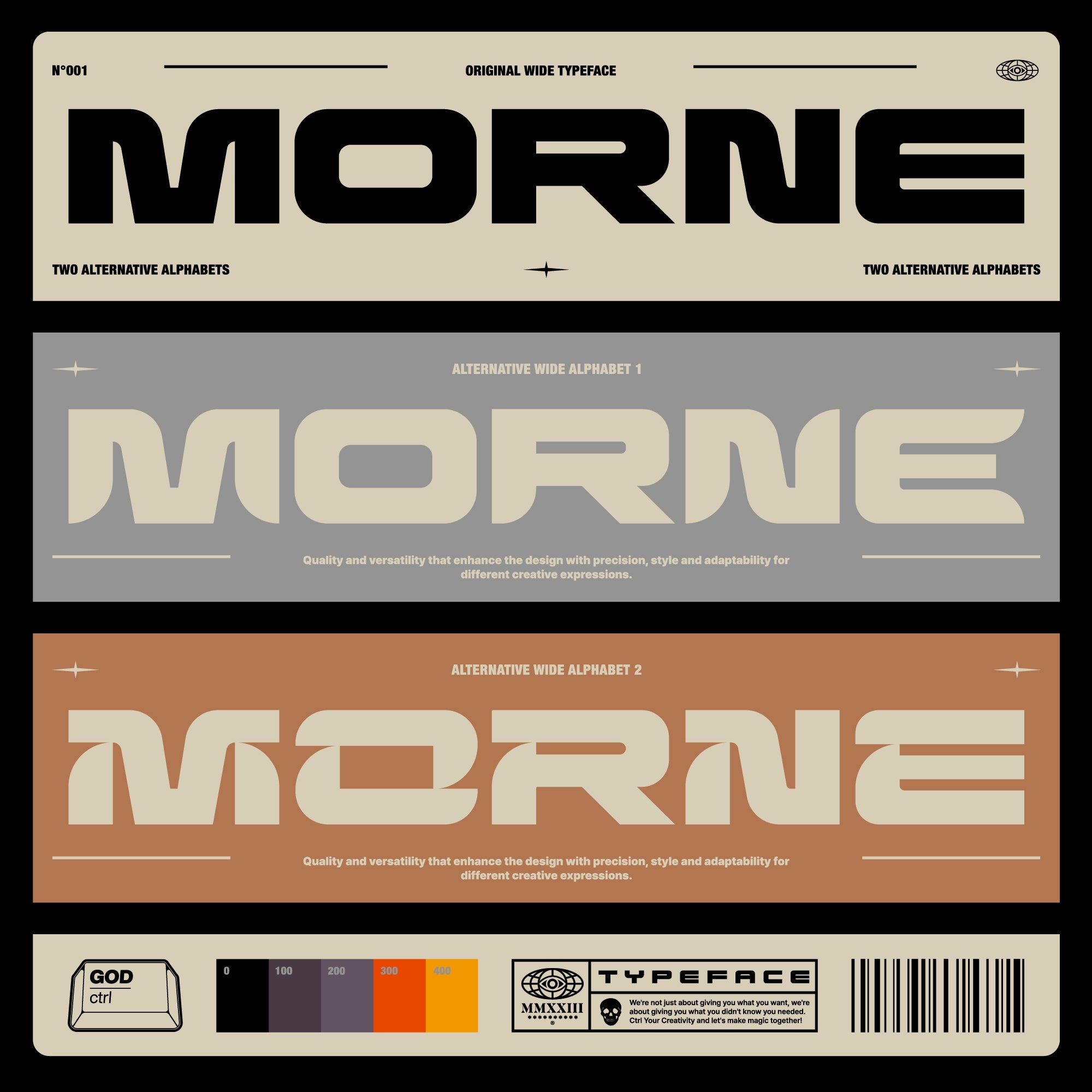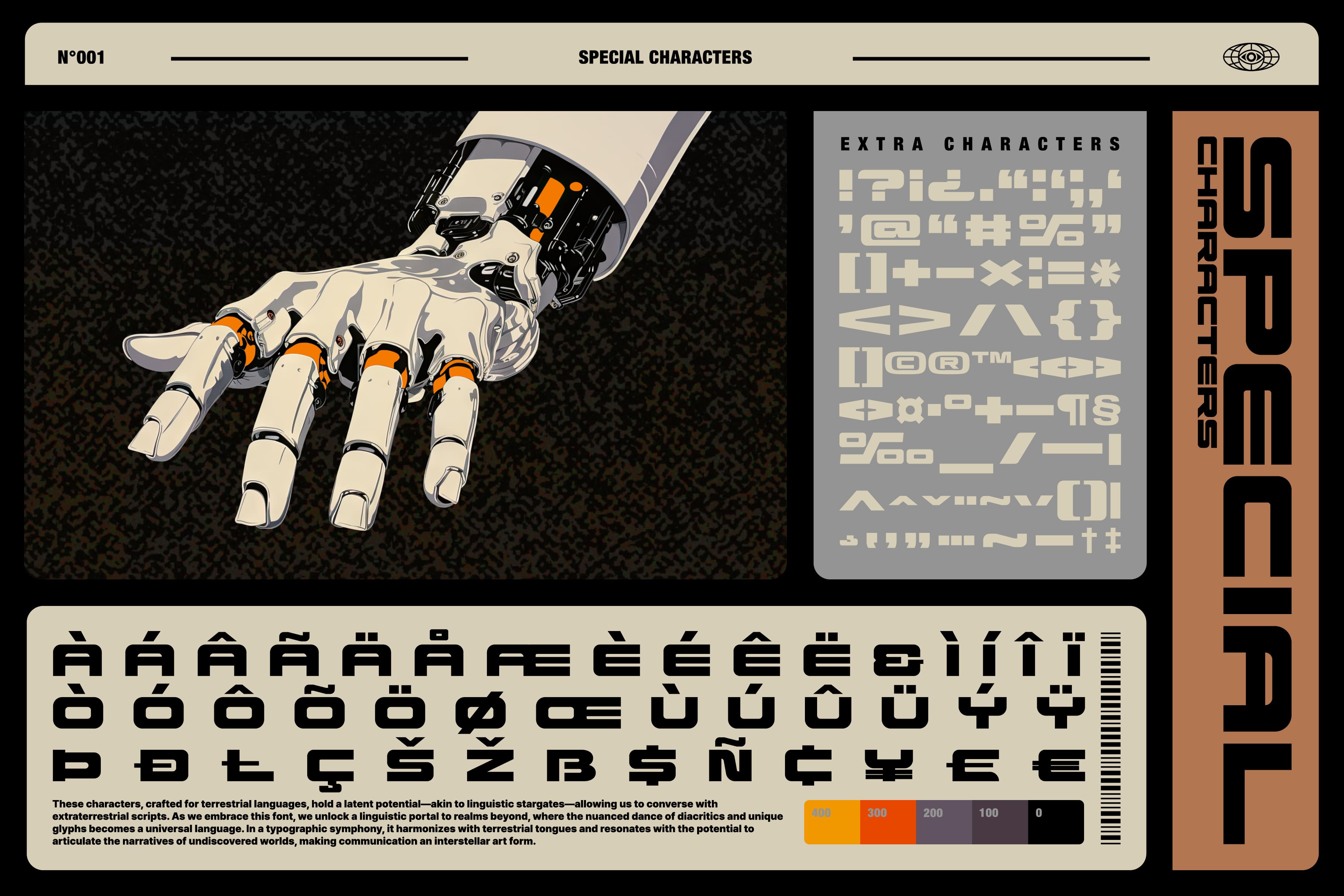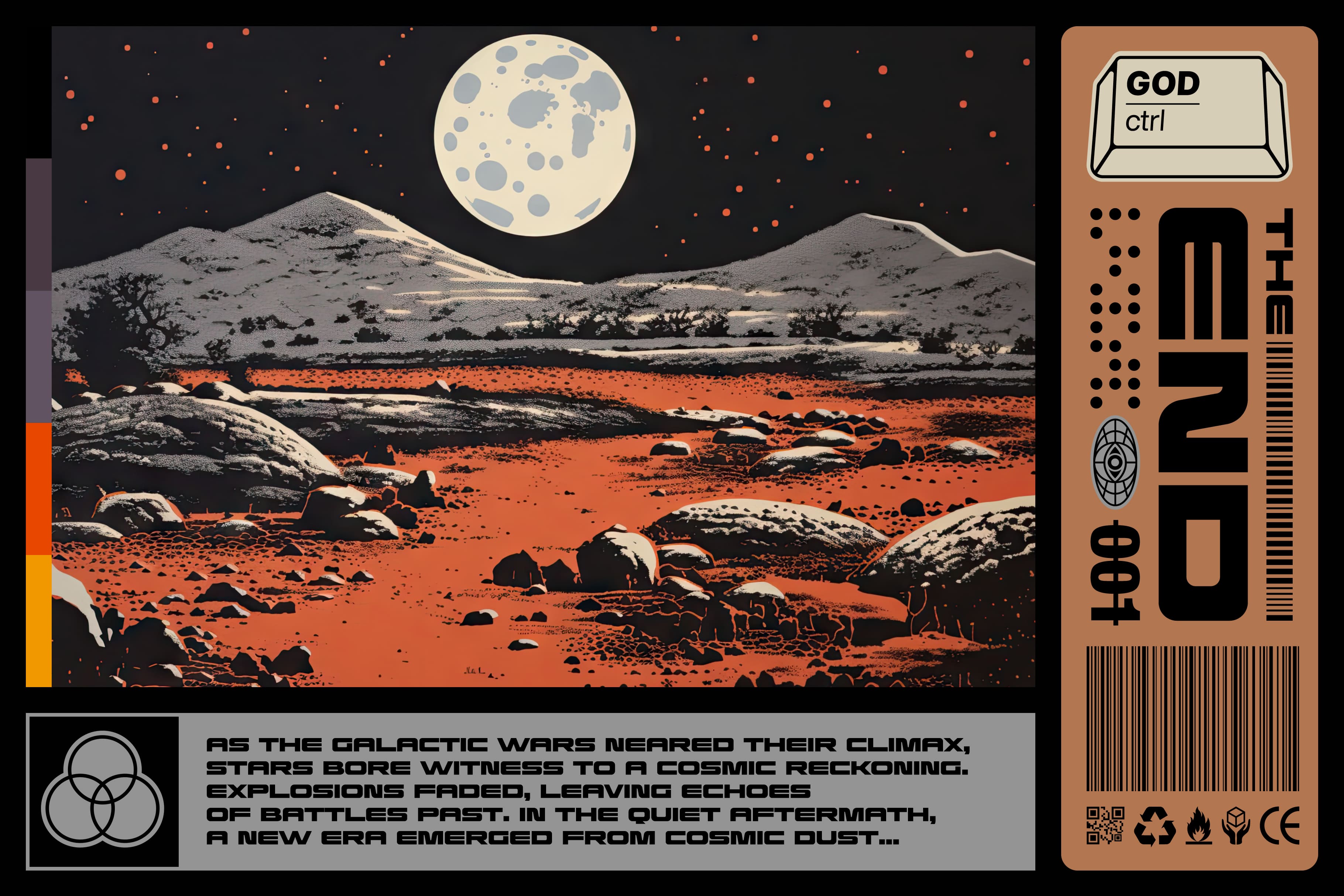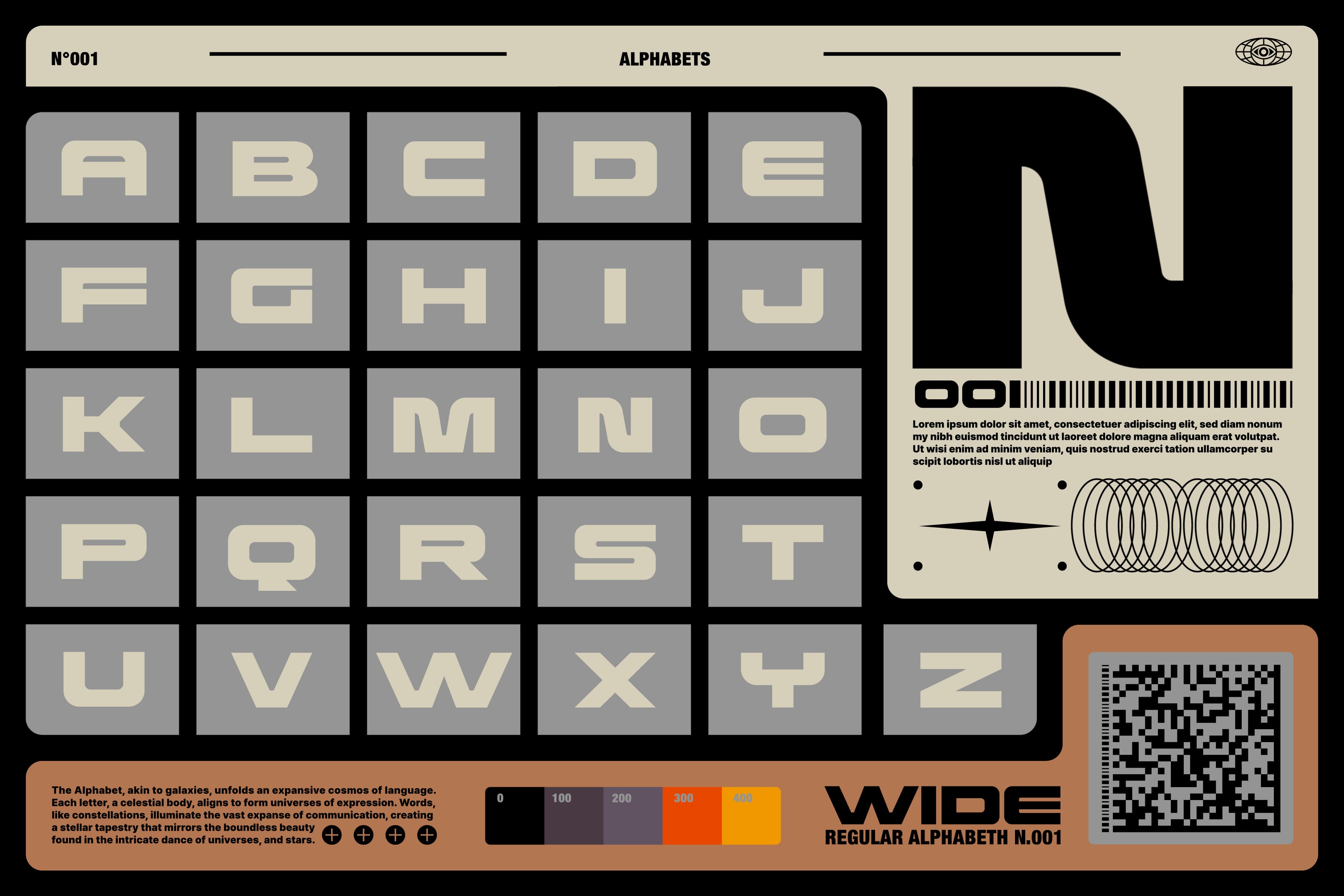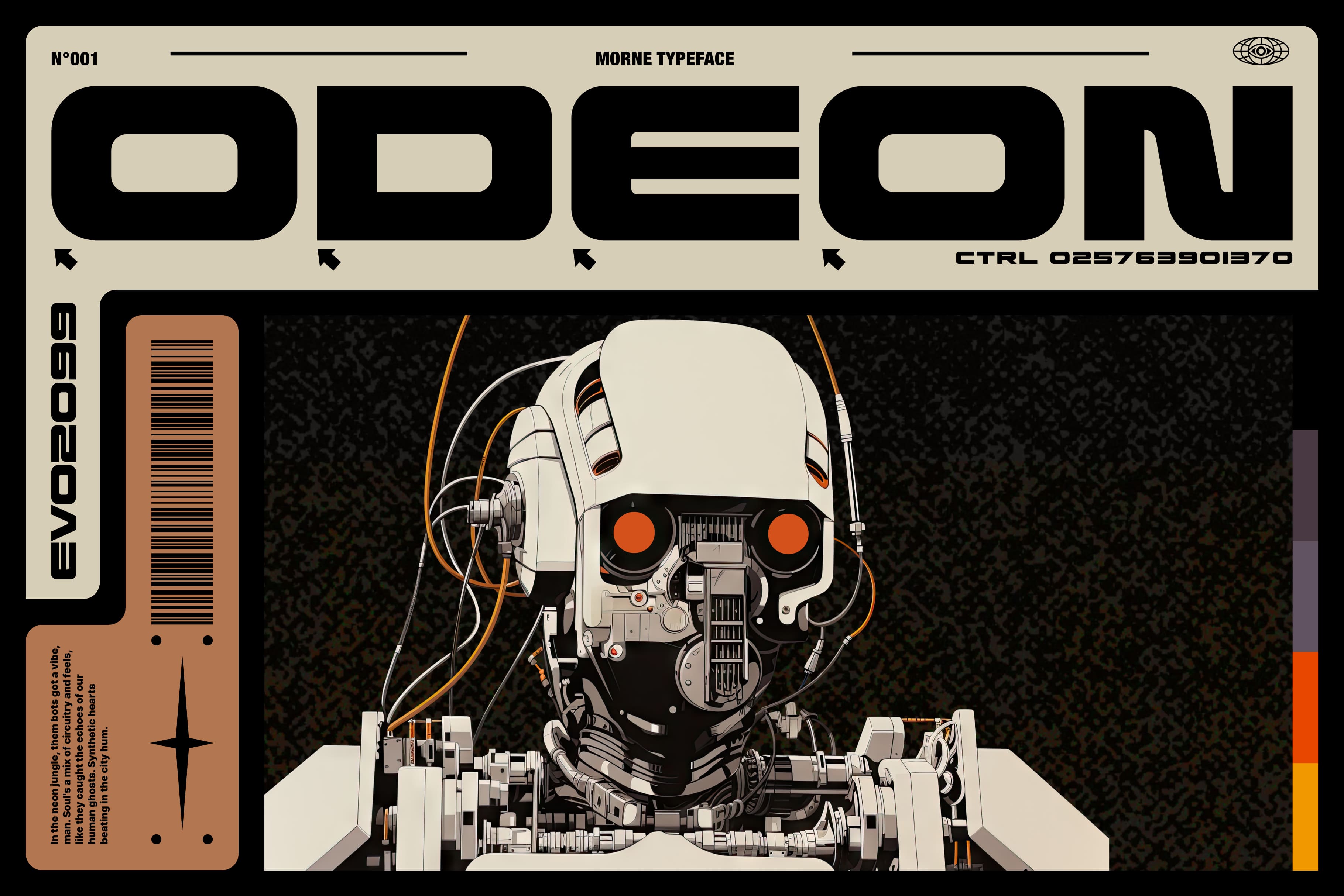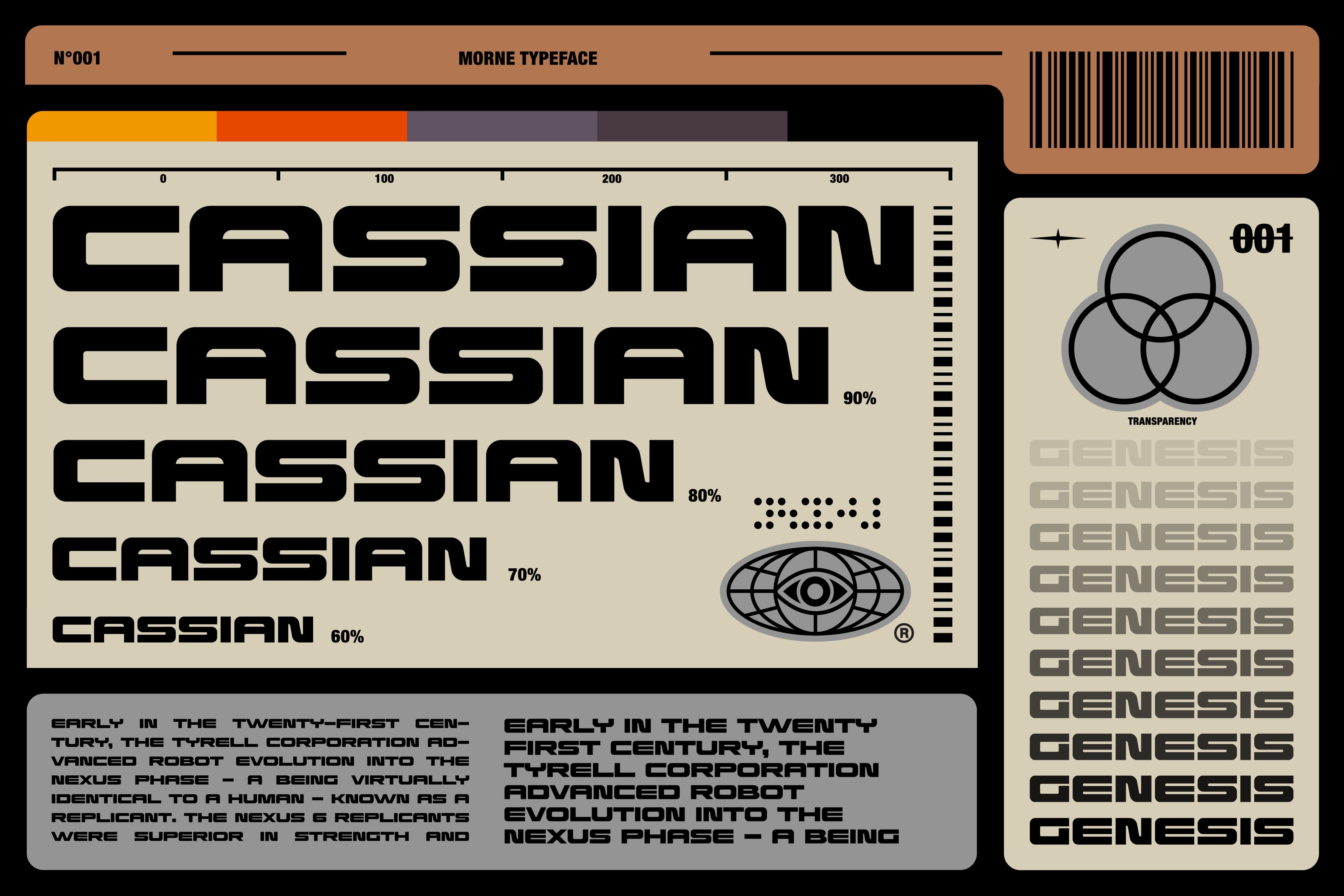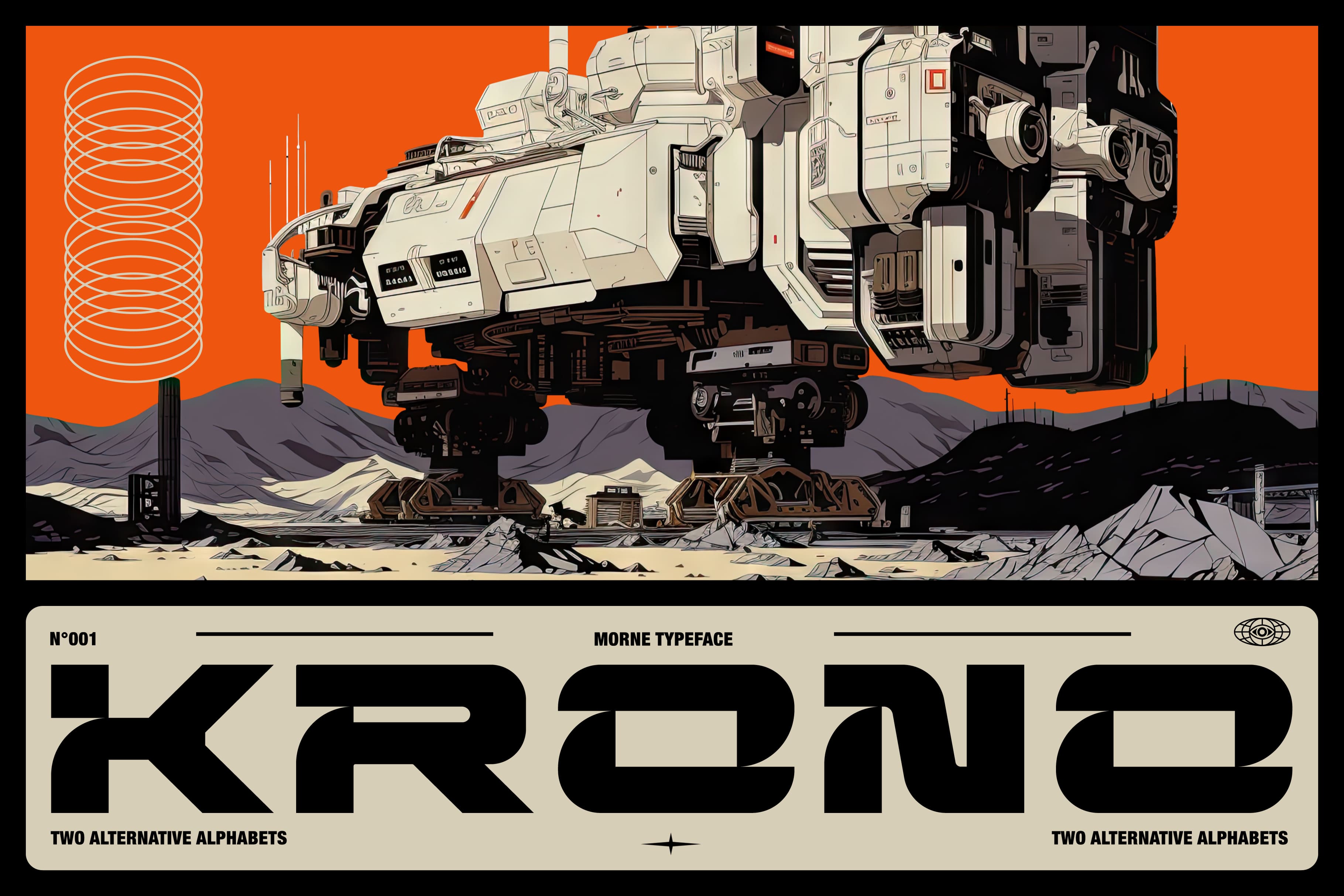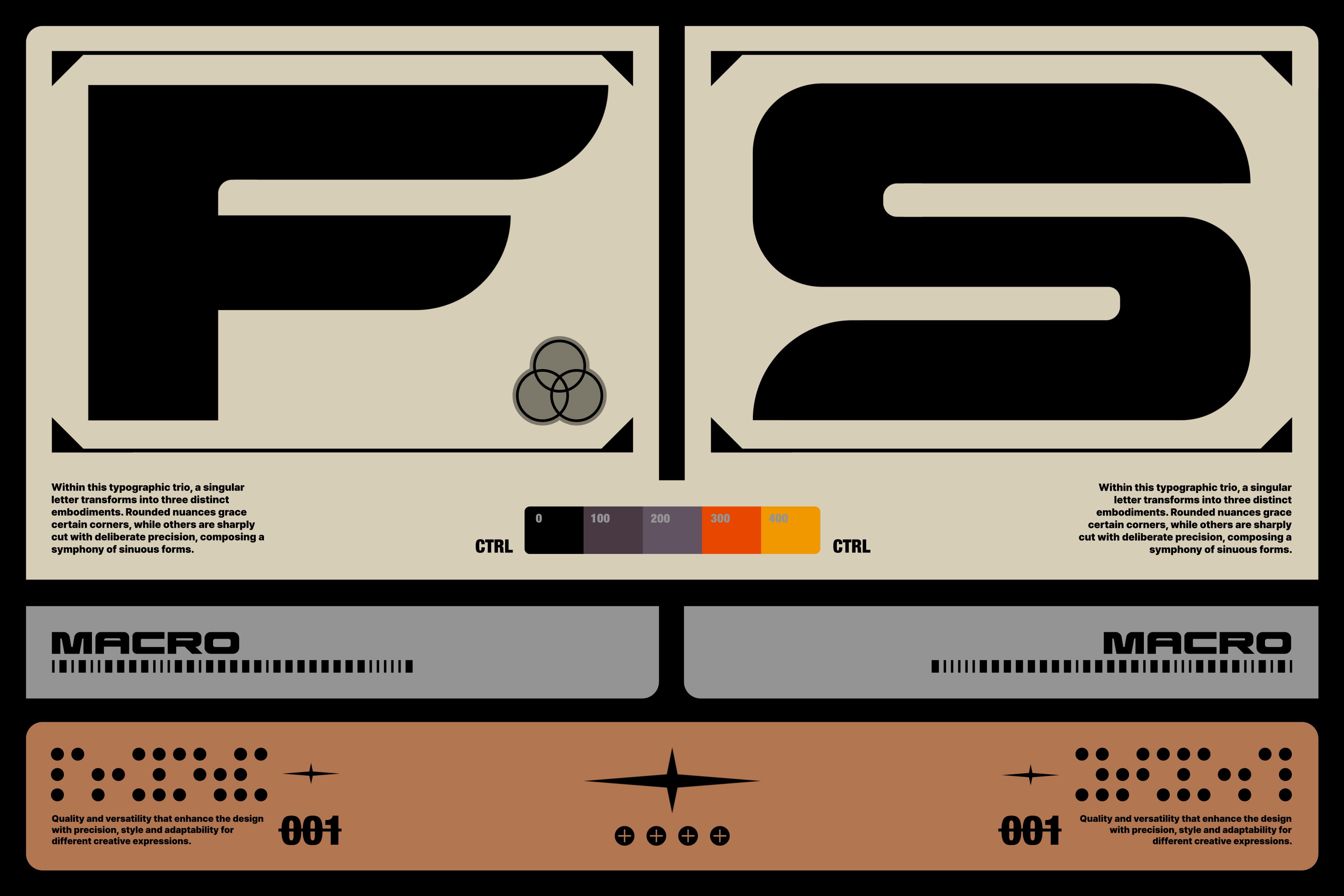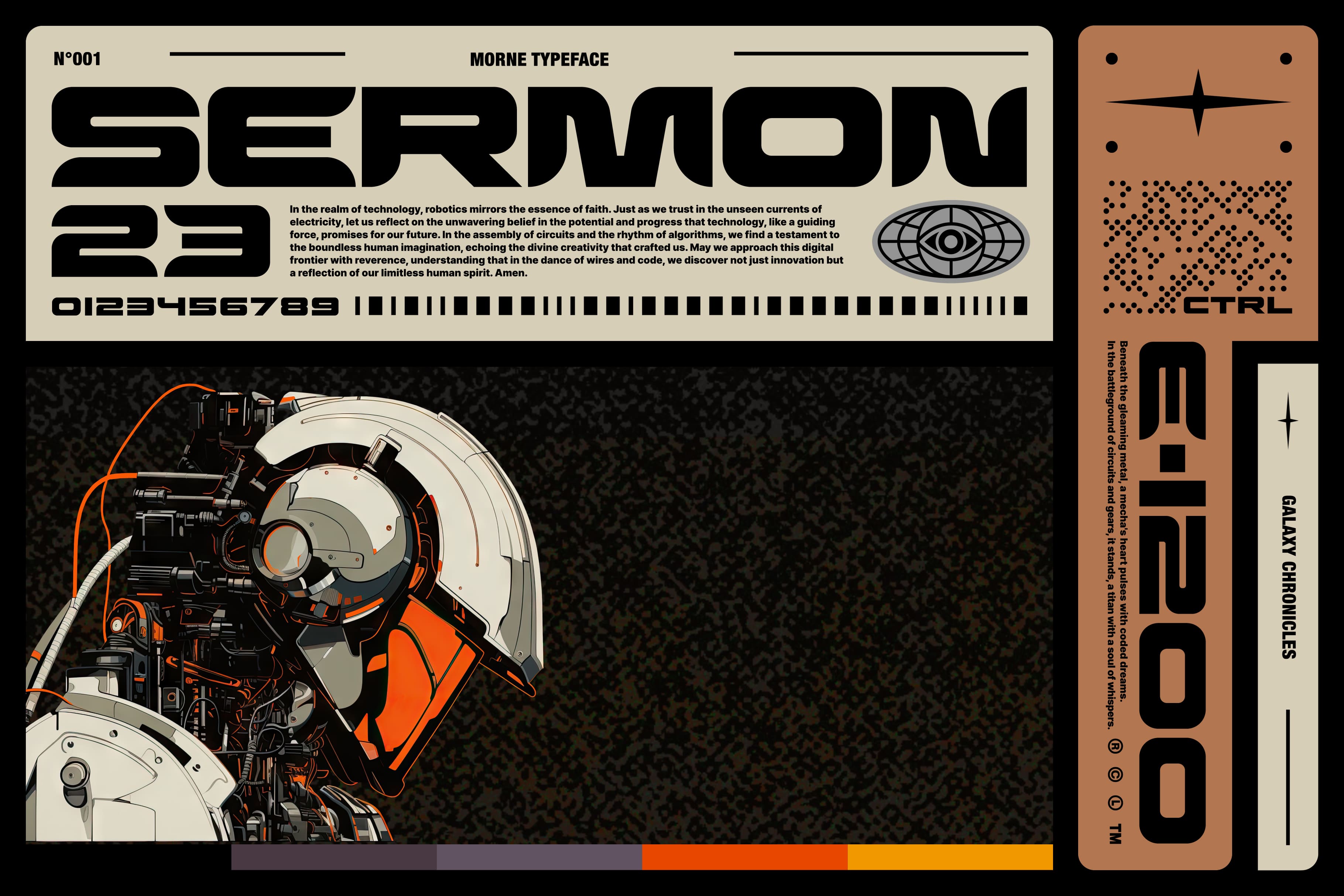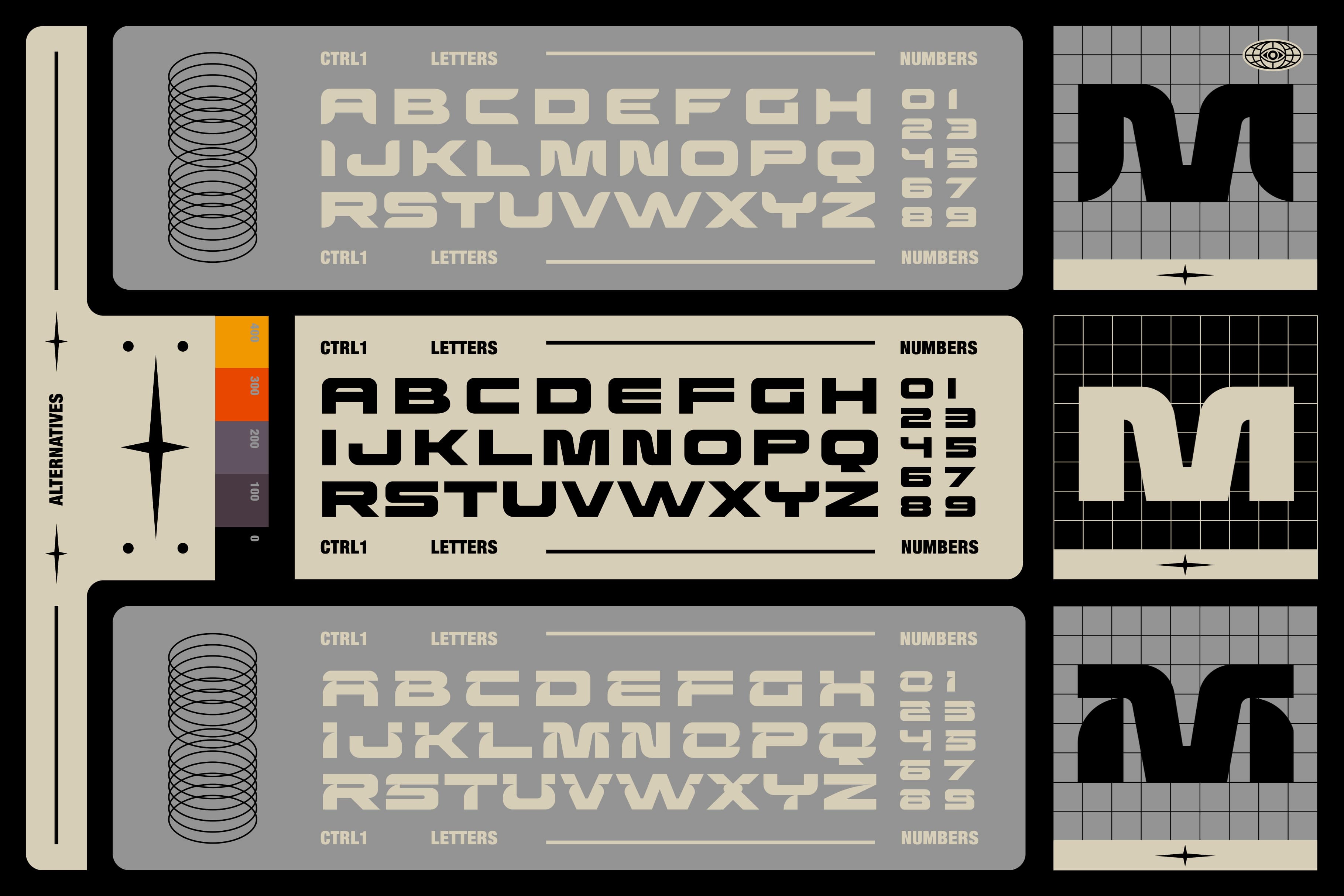
Morne Display Typeface
The Morne Display Typeface is a bold font featuring three alternatives for each letter and number, along with special characters and punctuation, totaling 256 characters. It includes files in OTF, TTF, WOFF, and WOFF2 formats for versatile use in design projects.